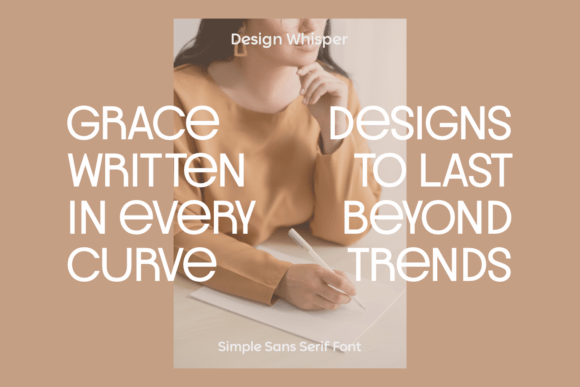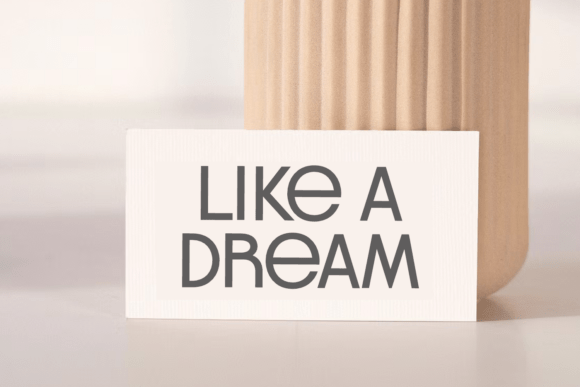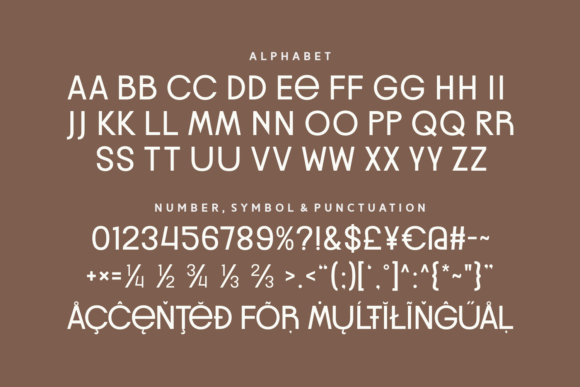
Introducing Design Whisper: The Epitome of Modern Sans Serif Fonts
In the realm of typography, a font can make or break the visual identity of a brand, product, or creative project. For designers and crafters seeking a typeface that embodies simplicity, elegance, and modernity, Design Whisper emerges as a stellar choice. This clean, modern sans serif font is meticulously crafted to bring a touch of sophistication and quiet strength to various design applications, ranging from logos and portfolios to packaging and web layouts.
The Essence of Design Whisper
Design Whisper is not just another font; it’s a design statement. Its crisp structure and geometric balance are the hallmarks of its design, making it an ideal candidate for projects that demand a minimalist yet impactful aesthetic. The font’s clean lines and uncluttered appearance ensure that it communicates with clarity and precision, making it perfect for a wide array of design needs.
One of the standout features of Design Whisper is its versatility. Whether you’re working on a logo that needs to convey simplicity and elegance, a design portfolio that requires a sophisticated touch, packaging that must stand out on shelves, or a web layout that demands a modern and clean look, Design Whisper proves to be an excellent choice. Its adaptability stems from its design philosophy, which focuses on achieving a balance between form and function.
Why Choose Design Whisper?
- Simplicity and Elegance: In an era where minimalism is celebrated, Design Whisper brings a breath of fresh air with its simple yet elegant design.
- Geometric Balance: The font’s geometric balance ensures that it is pleasing to the eye, making it suitable for projects where visual appeal is paramount.
- Quiet Strength: Design Whisper’s quiet strength lies in its subtlety. It doesn’t shout for attention but makes a lasting impression through its understated elegance.
- Wide Range of Applications: From branding and advertising to web design and personal projects, Design Whisper’s versatility knows no bounds.
Design Whisper in Design Applications
Design Whisper’s application in real-world design scenarios is vast. For instance, in logo design, its clean and simple structure allows for easy recognition and scalability across various mediums. In web design, it enhances user experience with its readability and modern look, making it an excellent choice for headings and body text alike. For packaging, its elegance and sophistication can elevate product presentation, making it more appealing to potential customers.
Tips for Using Design Whisper Effectively
- Pair it with Other Fonts: While Design Whisper is stunning on its own, it can also be paired with other fonts to create contrast and hierarchy in your designs.
- Experiment with Weights: If available, experimenting with different weights of Design Whisper can add depth and interest to your typography.
- Consider Color: The beauty of Design Whisper can be further enhanced with a thoughtful choice of color that aligns with your brand’s identity or project’s theme.
Design Whisper stands out in the crowded world of fonts as a beacon of modernity, simplicity, and elegance. Its design whispers sophistication and refinement, making it a valuable asset for designers and crafters looking to imbue their projects with a touch of class. Whether you’re aiming for a minimalist aesthetic or simply seeking a font that can keep up with your creative demands, Design Whisper is undoubtedly worth considering.
Embrace the quiet strength of Design Whisper and let its clean, modern lines speak volumes in your next design project.